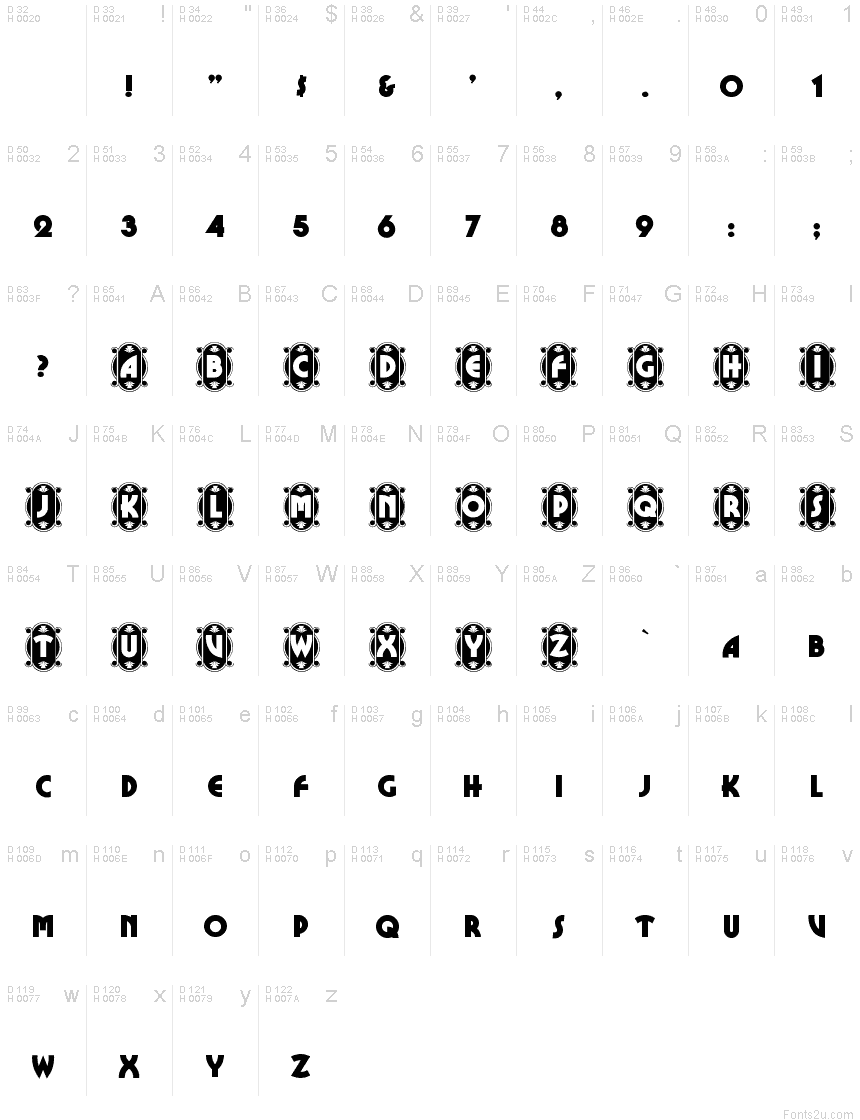
CameoAppearance
Cameo Appearance font by Nick Curtis is a free decorative display typeface that feels like it’s been lifted from an old theater marquee or vaudeville poster. Heavy, inky letterforms sit snugly together, while the ornate oval “cameo” panels at the ends create dramatic bookends for your text. The mix of bold geometric shapes and swirling ornament gives titles a lush, showtime presence without feeling fussy or fragile.
Using Cameo Appearance, your headlines snap into character on vintage event posters, circus or cabaret branding, retro packaging, book covers, tickets, and themed party invitations. This free font thrives at large sizes where its frames and curves can breathe. For supporting text, pair it with a clean, narrow sans serif to keep the spotlight on its decorative flair.